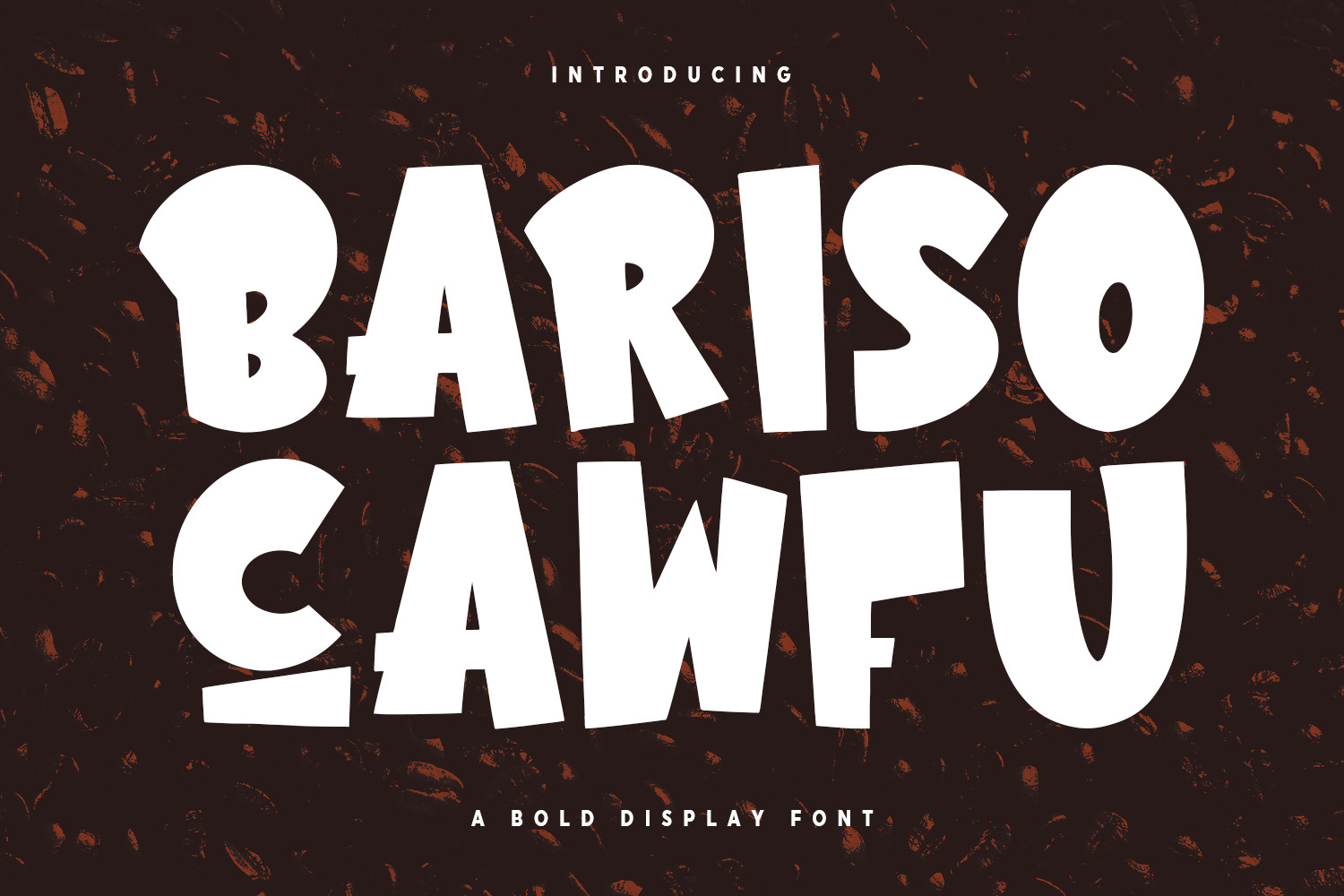
Bariso Cawfu Bold Display Font
Bariso Cawfu bold display font. Heavy stroke, fun character with a bit of ligatures. To give you an extra creative work. Bariso Cawfu bold display font support multilingual more than 100+ language. This font is good for logo design, Social media, Movie Titles, Books Titles, a short text even a long text letter and good for your secondary text font with script or serif. Make a stunning work with Bariso Cawfu bold display font.